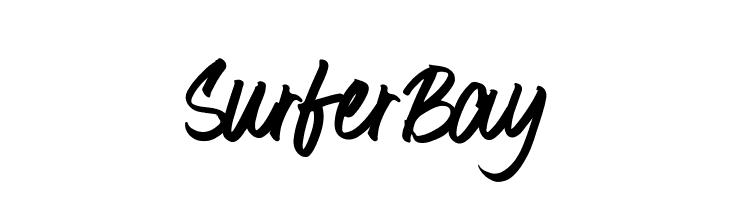
( Typodermic Fonts - Ray Larabie - www.typodermicfonts.com/ )
A bold, italicized font with strong, dynamic strokes and a slanted style.
( Typodermic Fonts - Ray Larabie - www.typodermicfonts.com/ )
A bold, italic font with dynamic slanted letterforms and a modern style.
( Vladimir Nikolic - www.coroflot.com/vladimirnikolic )
A bold, geometric font with a dynamic, slanted design.
( Vladimir Nikolic - www.coroflot.com/vladimirnikolic )
A fluid and dynamic handwritten font with elongated, slanted letterforms.
( Ydhra Studio - creativemarket.com/ydhra )
A modern, elegant script typeface with bold, slanted characters.
( Yoshihisa Nakai - fontopo.com )
A playful, handwritten-style font with thin, slanted characters.
( Zansari - Zaffar Ansari - www.zansarifont.com )
A bold, brush-style handwritten font with dynamic, slanted strokes.
( Zetafonts - www.zetafonts.com )
A bold and italicized font with strong, slanted strokes and a dynamic presence.
( aldedesign - Alde Saputro - creativemarket.com/aldedesign?u=aldedesign )
A sophisticated, slanted script font with flowing, interconnected letters and elegant flourishes.
( dcoxy - Greg Medina - www.dcoxy.com/ )
A playful, handwritten font with elongated, slanted letterforms and consistent stroke weight.